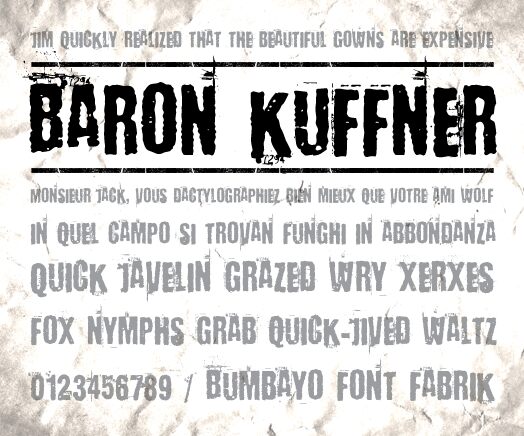
Baron Kuffner is a free eroded display font with forceful capitals. Ragged edges and chipped interiors give the lettering the battered look of ink stamped on a rough surface.
Music posters and horror game graphics suit its distressed, confrontational finish. It also fits underground magazine covers and merchandise built around punk or industrial themes. Against scratched photography or splattered illustration, the letters become part of the damage rather than a separate caption.
Baron Kuffner